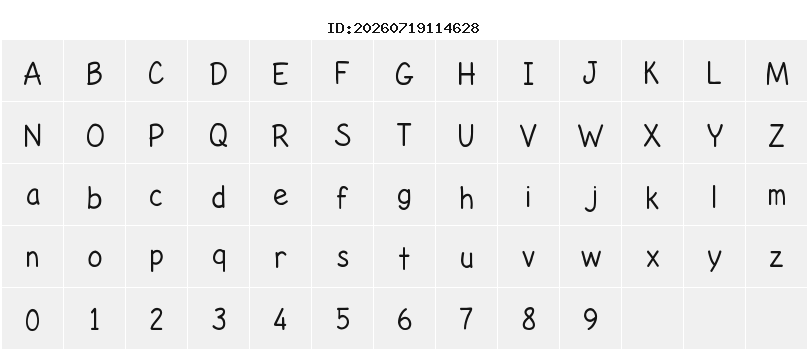
也字工厂润圆体 Preview
• Font Name: 也字工厂润圆体
• Full Font Name: 也字工厂润圆体
• Manufacturer: 也字工厂
About 也字工厂润圆体.ttf
也字工厂润圆体.ttf is a modern, elegant sans-serif font designed for ultimate readability and visual harmony. Perfect for branding, headlines, web design, and print materials.